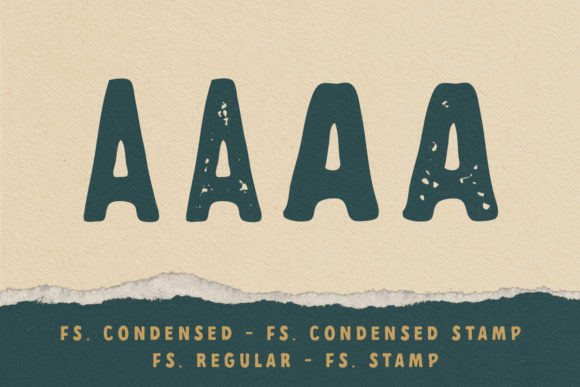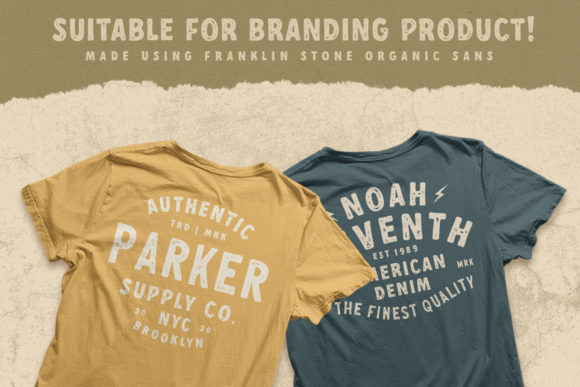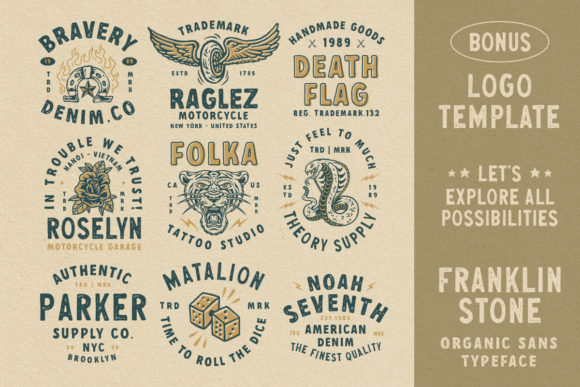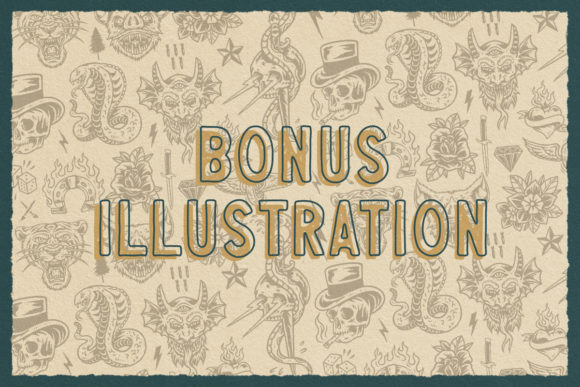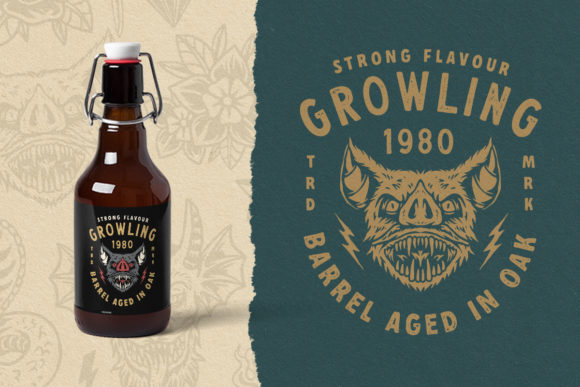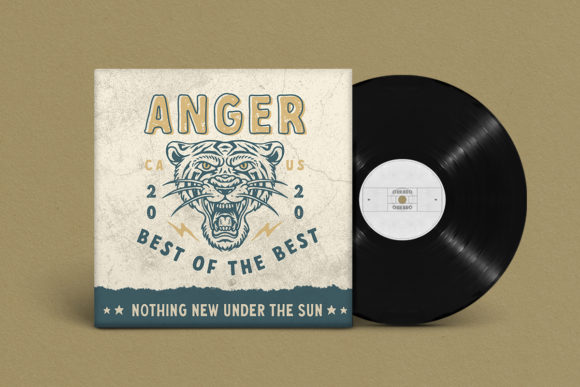
The Franklin Stone Font: A Timeless Choice for Creative Projects
I’ll never forget the time I was working on a branding project for a local craft brewery. I had spent hours perfecting the logo design, but something was off. The font I had chosen just didn’t feel right – it was too sleek, too modern, and didn’t quite capture the warm, rustic vibe of the brewery. That’s when I stumbled upon the Franklin Stone font. It was like a breath of fresh air! The organic, vintage feel of this font instantly resonated with the brewery’s aesthetic, and I knew I had found the perfect fit.
A Personal Review of Franklin Stone
So, what makes Franklin Stone such a great choice for creative projects? Let’s dive in!
What I Love About Franklin Stone
- ✨ Organic and vintage feel: Franklin Stone has a unique, hand-crafted quality that adds a touch of warmth and personality to any design.
- ✅ Simple and versatile: This font is incredibly versatile, making it suitable for a wide range of applications, from branding and packaging to invitations and posters.
- 💡 Excellent for display text: Franklin Stone is optimized for display text, making it perfect for headlines, titles, and quotes.
While Franklin Stone is an excellent font, it’s not without its quirks. Here are a few things to keep in mind:
- 🤔 Limited use for body text: Due to its display-focused design, Franklin Stone may not be the best choice for longer blocks of body text.
- ⚠️ Some glyphs may require manual adjustment: As with any font, some glyphs may require manual adjustment to ensure proper spacing and alignment.
The Story Behind Franklin Stone
Franklin Stone was designed with the intention of creating a font that would evoke a sense of warmth and nostalgia. The designer aimed to craft a font that would feel both vintage and timeless, making it perfect for creative projects that require a touch of personality.
Q: What is the Franklin Stone font best used for?
A: Franklin Stone is best used for display text, such as headlines, titles, and quotes. It’s perfect for branding, packaging, invitations, and posters.
Q: Can I use Franklin Stone for body text?
A: While Franklin Stone can be used for body text, it’s not the most optimal choice. Its display-focused design makes it better suited for shorter blocks of text.